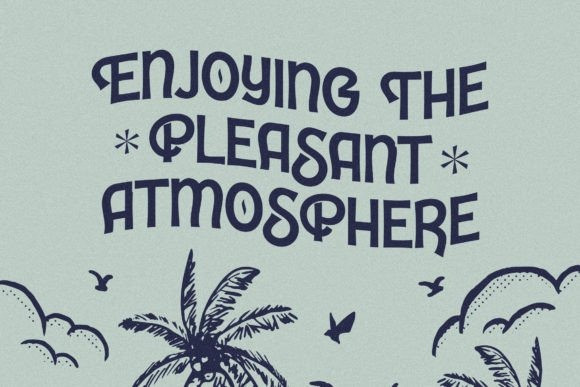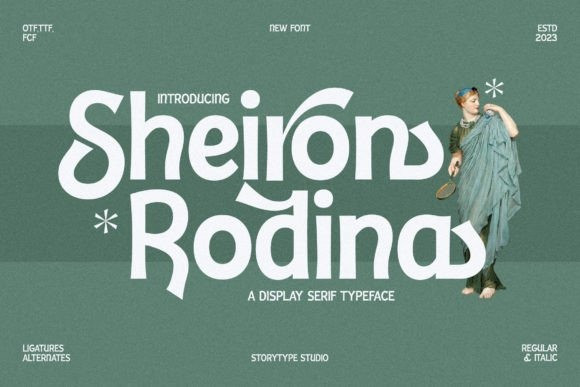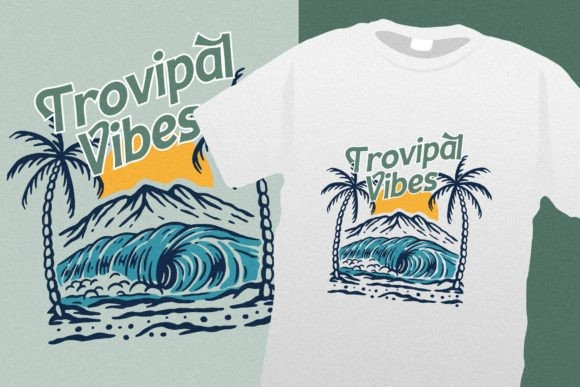
Sheiron Rodina Font
Proudly present Sheiron Rodina Vintage Typeface , created by Storytype, a serif modern and classic typeface that has own unique style & modern look.